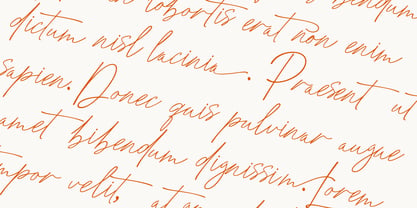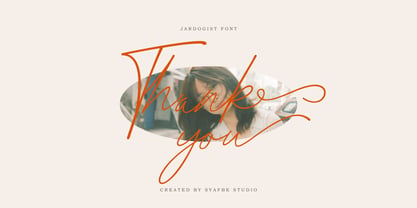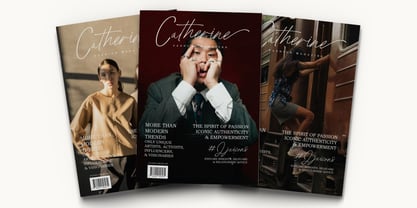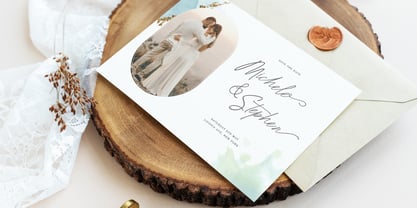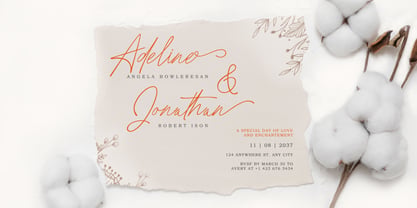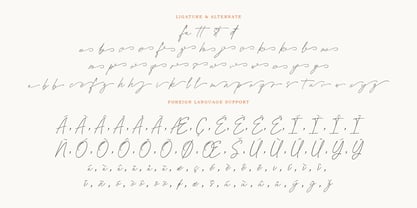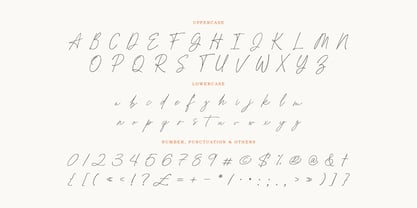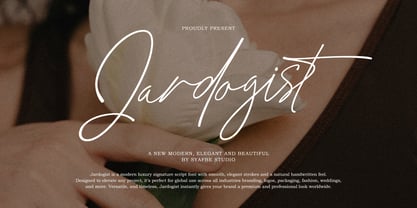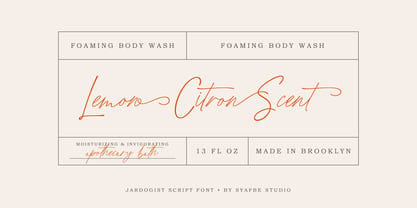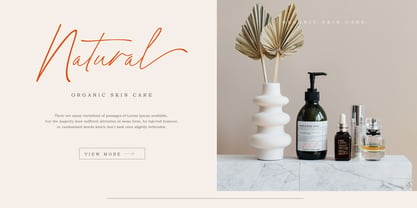
Jardogist
The Jardogist Font Family was designed by Syafwan Mus and published by Syafbe. Jardogist contains 1 styles. More about this family
Jardogist is a classy signature script font with a modern luxury feel, designed to make every design look effortlessly elegant and memorable. Its smooth, natural flow and refined strokes create a premium handwritten aesthetic that feels personal yet powerful. Perfect for a global market, Jardogist can be used across any industry worldwide, whether for branding, logos, packaging, fashion labels, beauty brands, culinary businesses, weddings, editorial layouts, digital content, or personal brands. Versatile enough to complement minimalist concepts or high-end visuals, this font is a timeless investment that elevates your identity, enhances your professionalism, and helps your brand stand out on an international level.